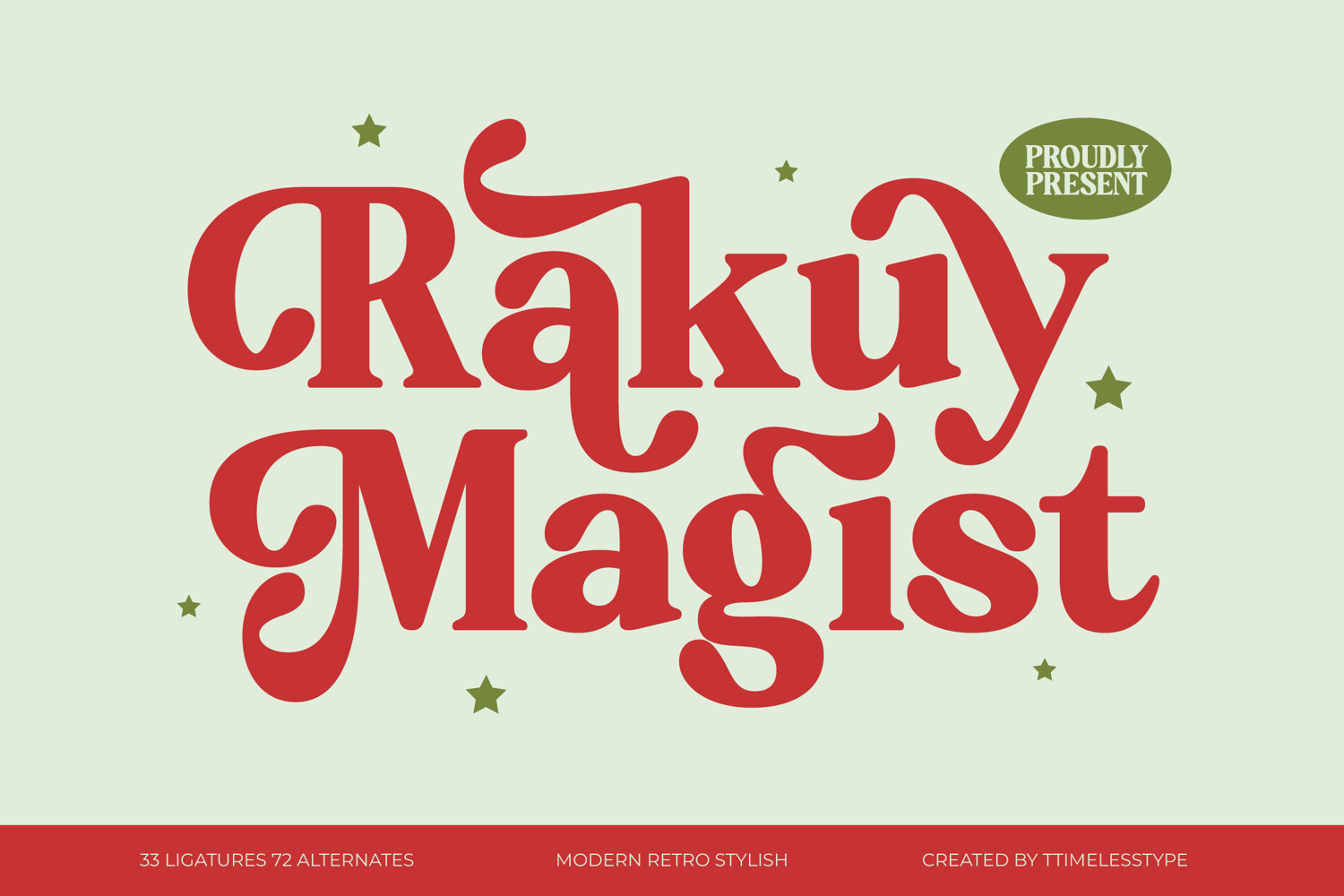
Rakuy Magist - Modern Retro Stylish
Rakuy Magist
Rakuy Magist Italic
Unlock the power of expressive display typography with Rakuy Magist - Modern Retro Stylish, a stunning typeface engineered for maximum visual impact. This font flawlessly captures the nostalgic energy of 1970s graphics while delivering clean, contemporary readability. Its defining characteristics are the exaggerated, smooth curves and the robust, solid weight that commands attention, making it an instantly memorable choice for any headline or logotype needing a distinctive, retro-glamour aesthetic.